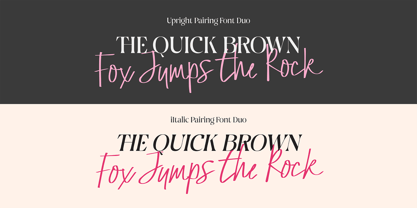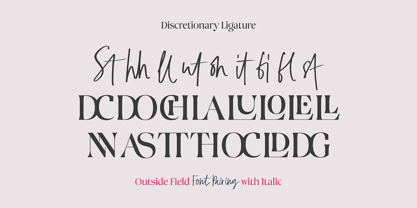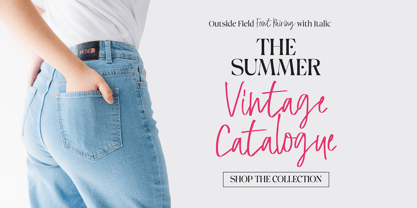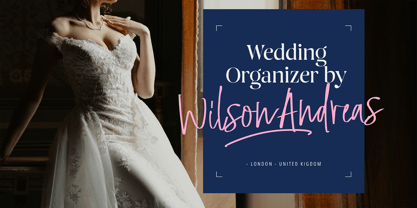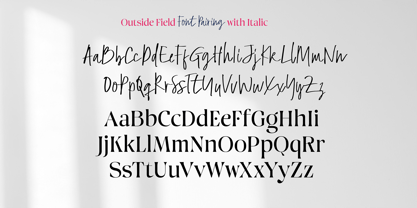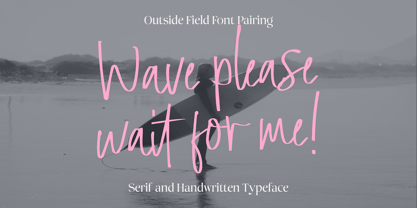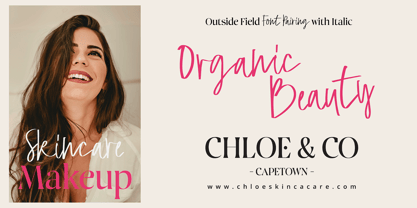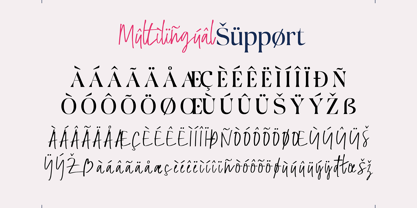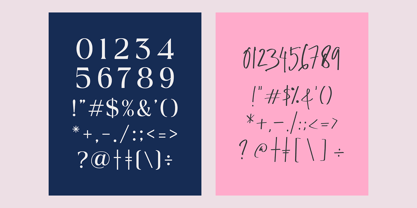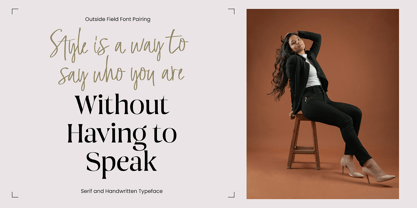
Outside Field Serif
von Godbless Studio
Die Schriftfamilie Outside Field Serif wurde von Heri Juniawan entworfen und von Godbless Studio veröffentlicht. Outside Field Serif enthält 6 Stile und Familienpaketoptionen. Mehr über diese Familie
Hello everyone, I would like to introduce Outside Field Font Pairing, a modern and stylish handwritten and Serif font.
Backbone Typeface can be used for a variety of projects such as branding, labels, photography, invitations, stationery, wedding designs, social media posts, advertising, product packaging, product design, and more.
Designer: Heri Juniawan
Foundry: Godbless Studio